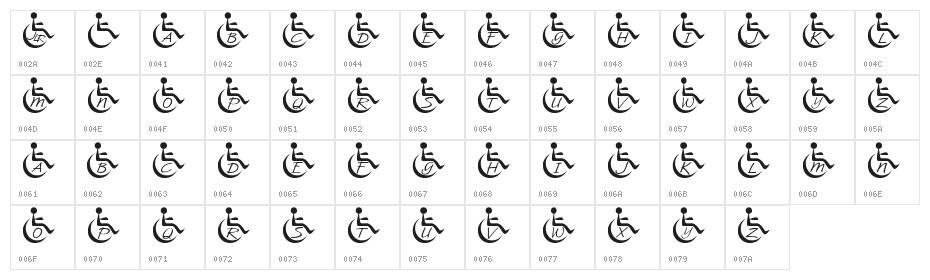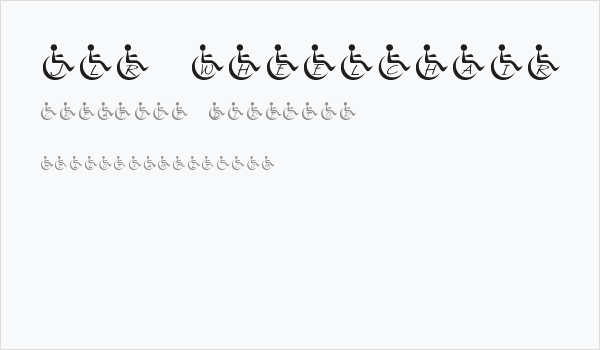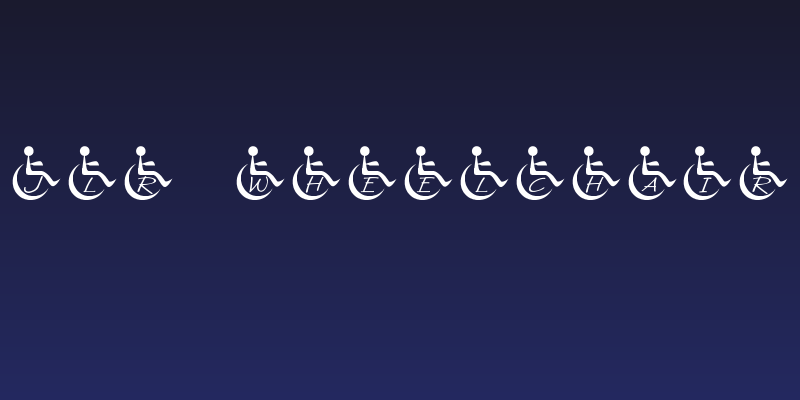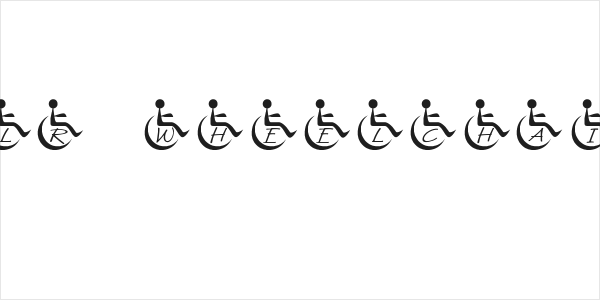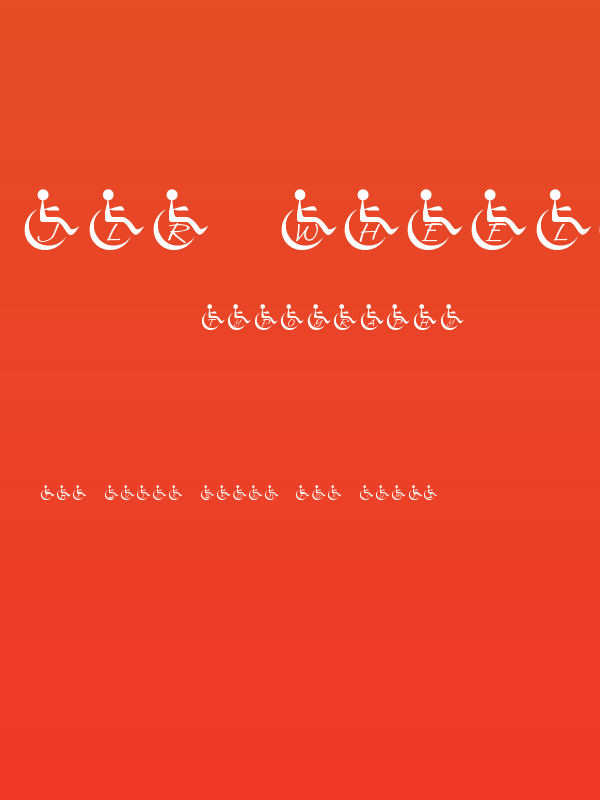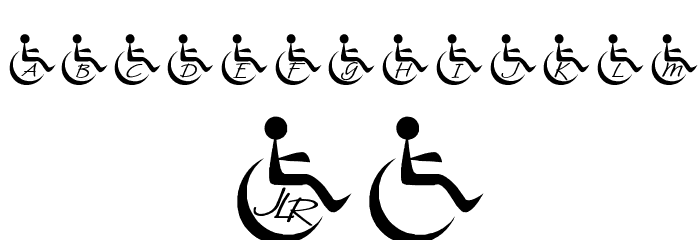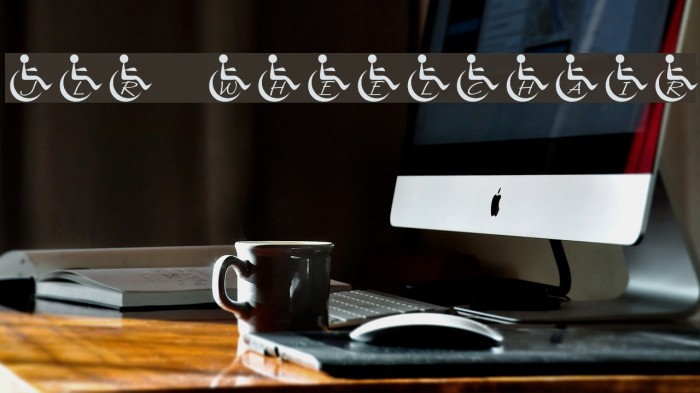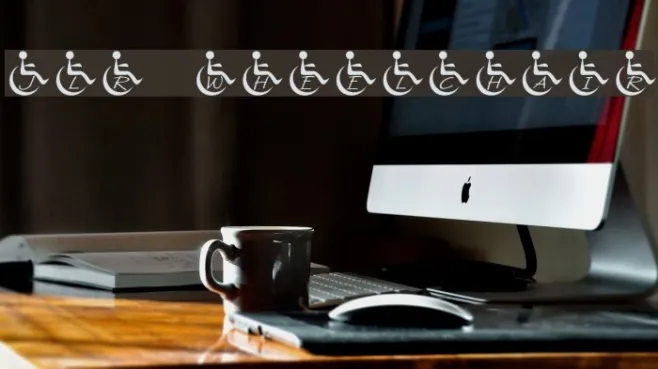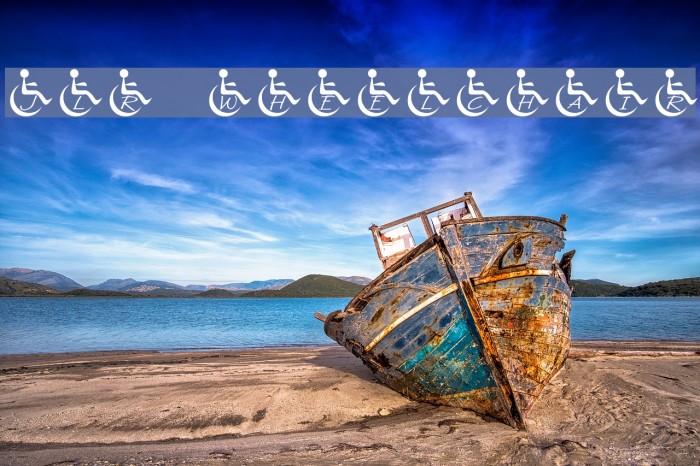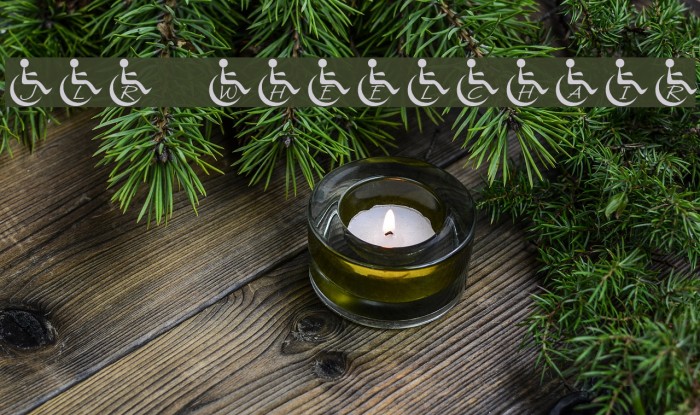
JLR Wheelchair Font
JLR Wheelchair Description
This unique font integrates the universal wheelchair symbol with each character, creating a distinct and inclusive design. Each letter is creatively embedded within the circular wheel of the wheelchair icon, maintaining legibility while promoting accessibility. The design is both innovative and functional, making it suitable for projects that aim to highlight inclusivity and accessibility. The characters are evenly spaced, ensuring clarity and readability. The style is modern and decorative, with a playful yet meaningful approach. This font is ideal for use in campaigns, logos, or any design work that seeks to emphasize diversity and inclusion.
| Use Case | Logos, Campaigns, Educational materials |
| Proposed Projects | Ideal for accessibility campaigns, inclusive branding, and educational materials. |